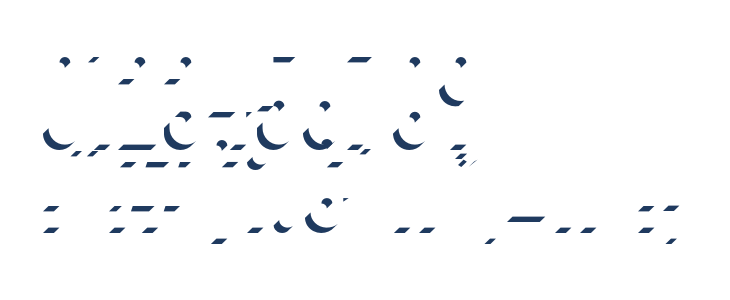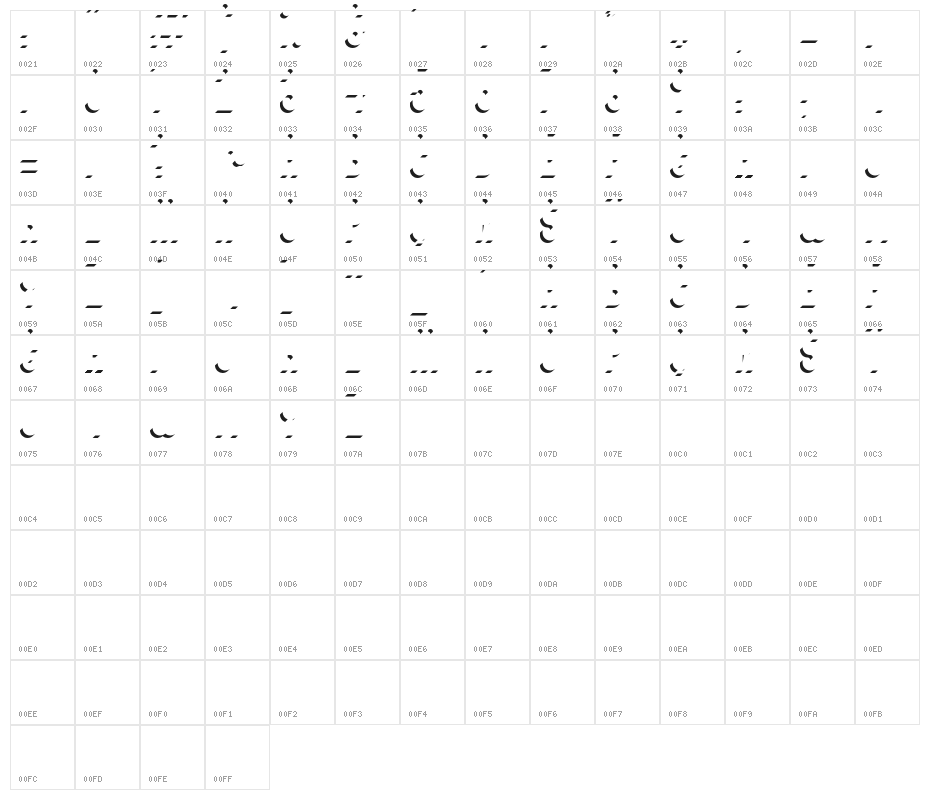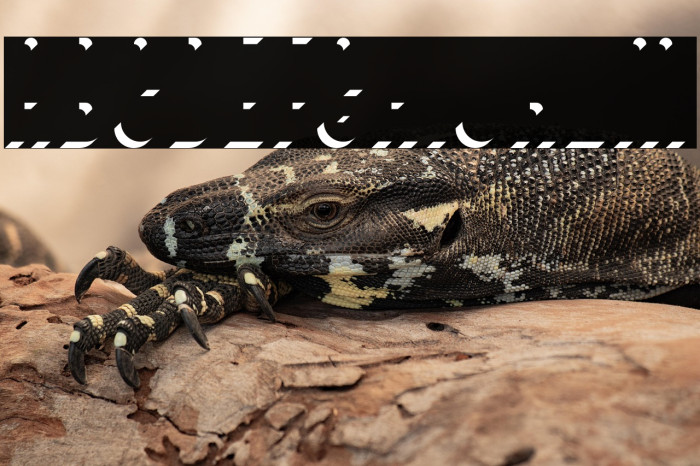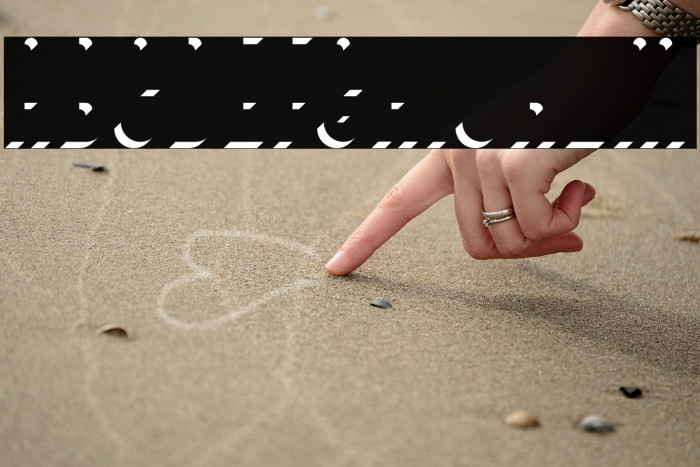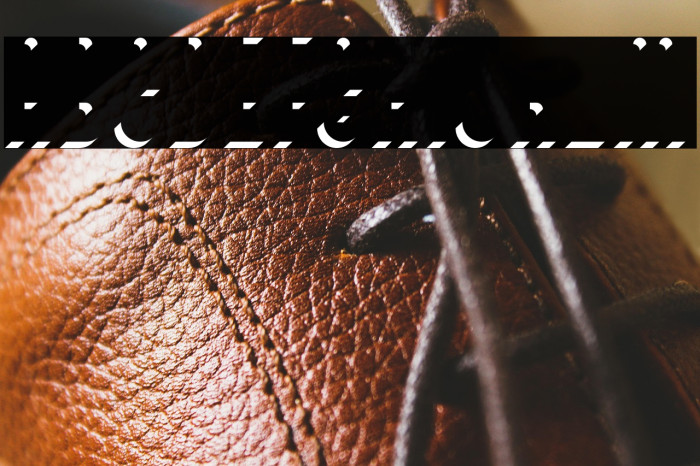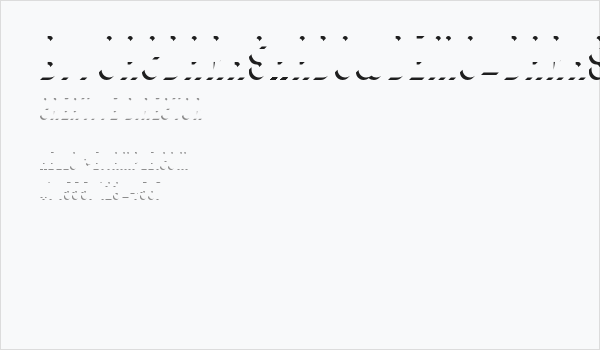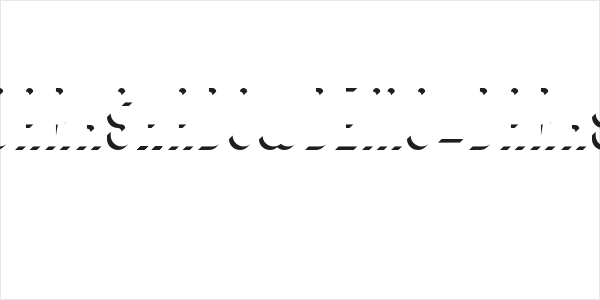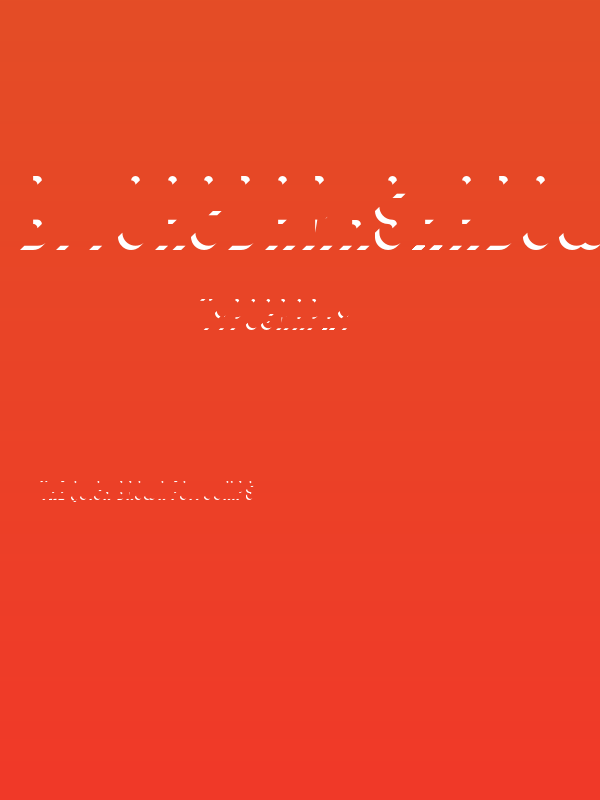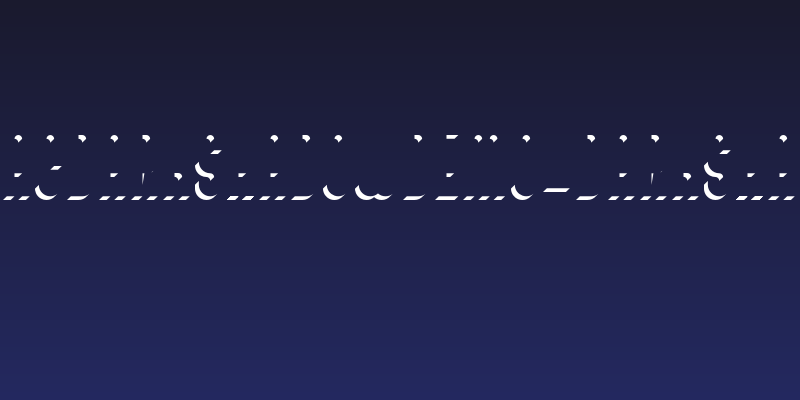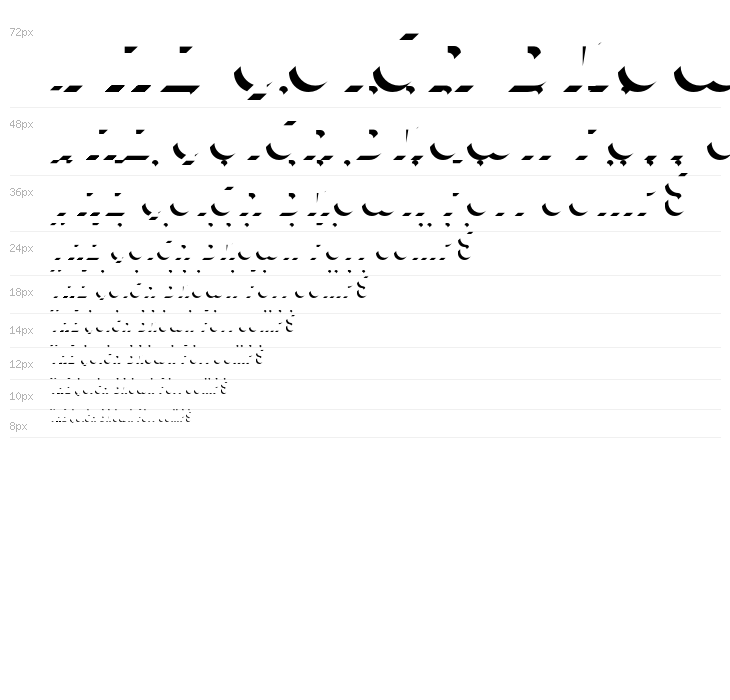
BivoacDarkShadowDemo-DarkShadow Font
BivoacDarkShadowDemo-DarkShadow Description
This font features a unique design with a shadow effect that creates a sense of depth and dimension. The characters are bold and striking, with a distinct style that combines both modern and vintage elements. Each letter is crafted with precision, showcasing a blend of sharp angles and smooth curves. The shadow effect is consistent across all characters, adding to the overall cohesive look. This font is ideal for projects that require a standout, eye-catching typeface that can convey a sense of boldness and creativity.
| Overall Style | Modern, Vintage |
| Proposed Projects | Ideal for posters, logos, headlines, and branding materials that need a bold statement. |